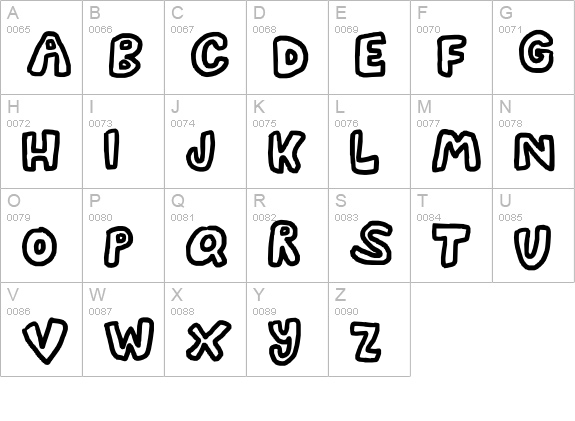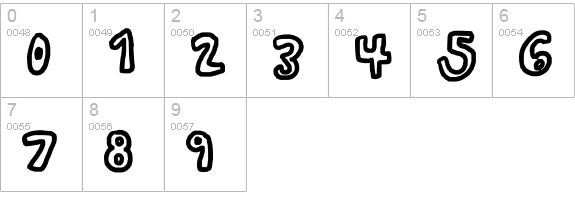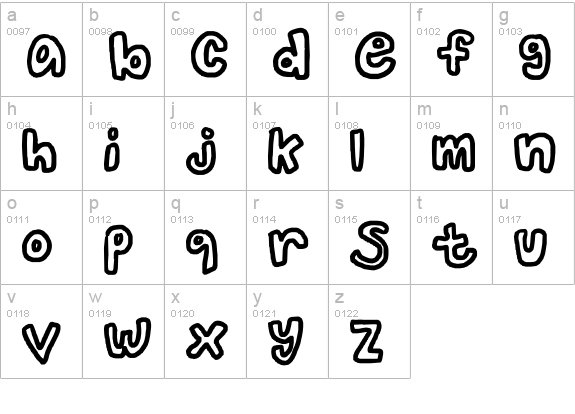
Introducing GROOVY font, a captivating and vibrant typeface that will add a touch of playfulness and retro charm to any design project. With its bold and curvaceous letterforms, GROOVY font exudes a sense of energy and excitement, making it perfect for headings, logos, posters, and more. But what sets GROOVY font apart from the rest is not just its eye-catching aesthetics, but also its accessibility. Yes, that's right - GROOVY font is absolutely free! You heard it correctly, this delightful typeface can be yours without spending a dime. To get your hands on GROOVY font, simply head over to FontsMarket.com, a reputable online platform for font enthusiasts. There, you can freely download this remarkable font and let your creativity run wild. Whether you're a professional designer or just someone who enjoys experimenting with different typographic styles, GROOVY font offers endless possibilities and is sure to elevate your designs to new levels of grooviness. So don't miss out on this opportunity to add a dash of retro flair to your projects. Download GROOVY font today from FontsMarket.com and let the good vibes flow!